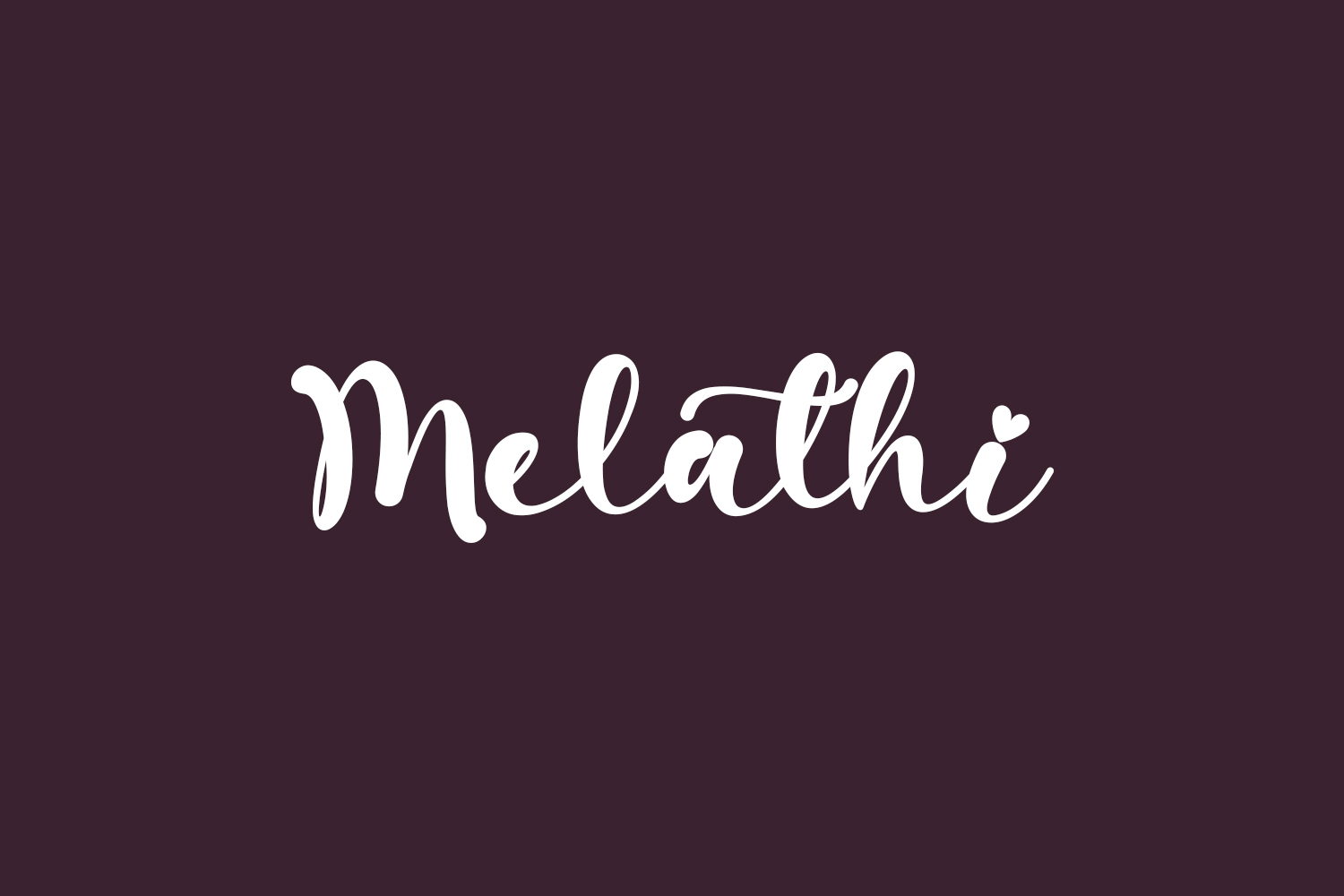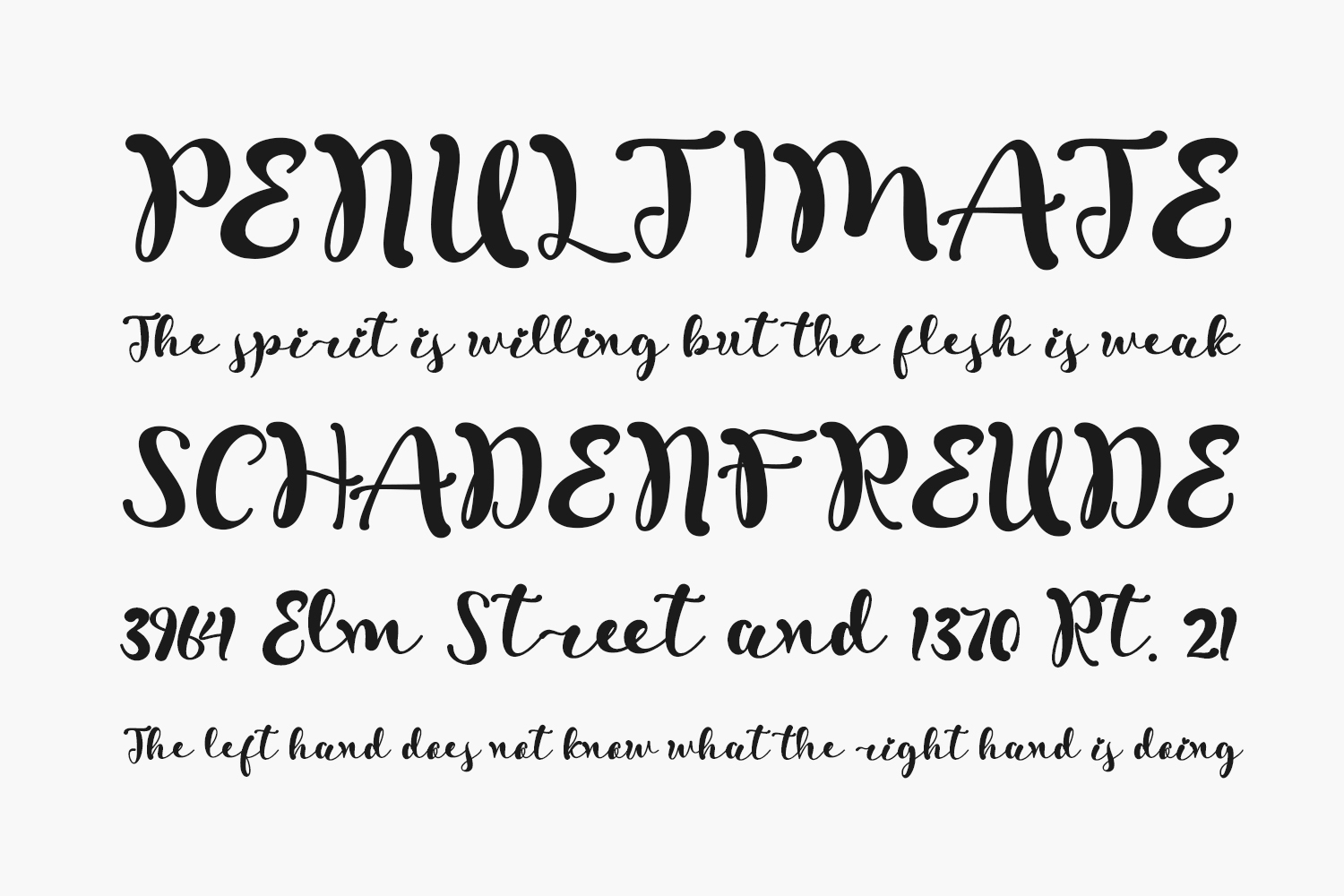
Melathi Free Font is a romantic and sweet calligraphy typeface with characters that dance along the baseline. It will add a luxury spark to any design project that you wish to create. Melathi Free Font was designed by Yoga Letter and is free for personal use only. Please purchase the full version for commercial use.